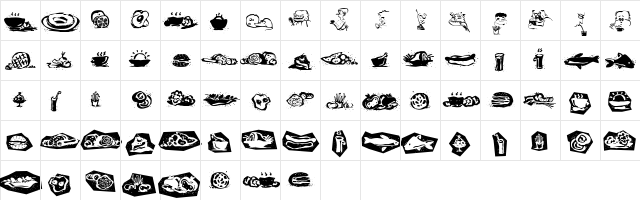
AIMenu Medium Free Font
AIMenu Medium
Foundry: Copr. Alphabets, Inc
Design Context for AIMenu
AIMenu is a composed and adaptable typeface that performs quietly and consistently across a wide range of design contexts.